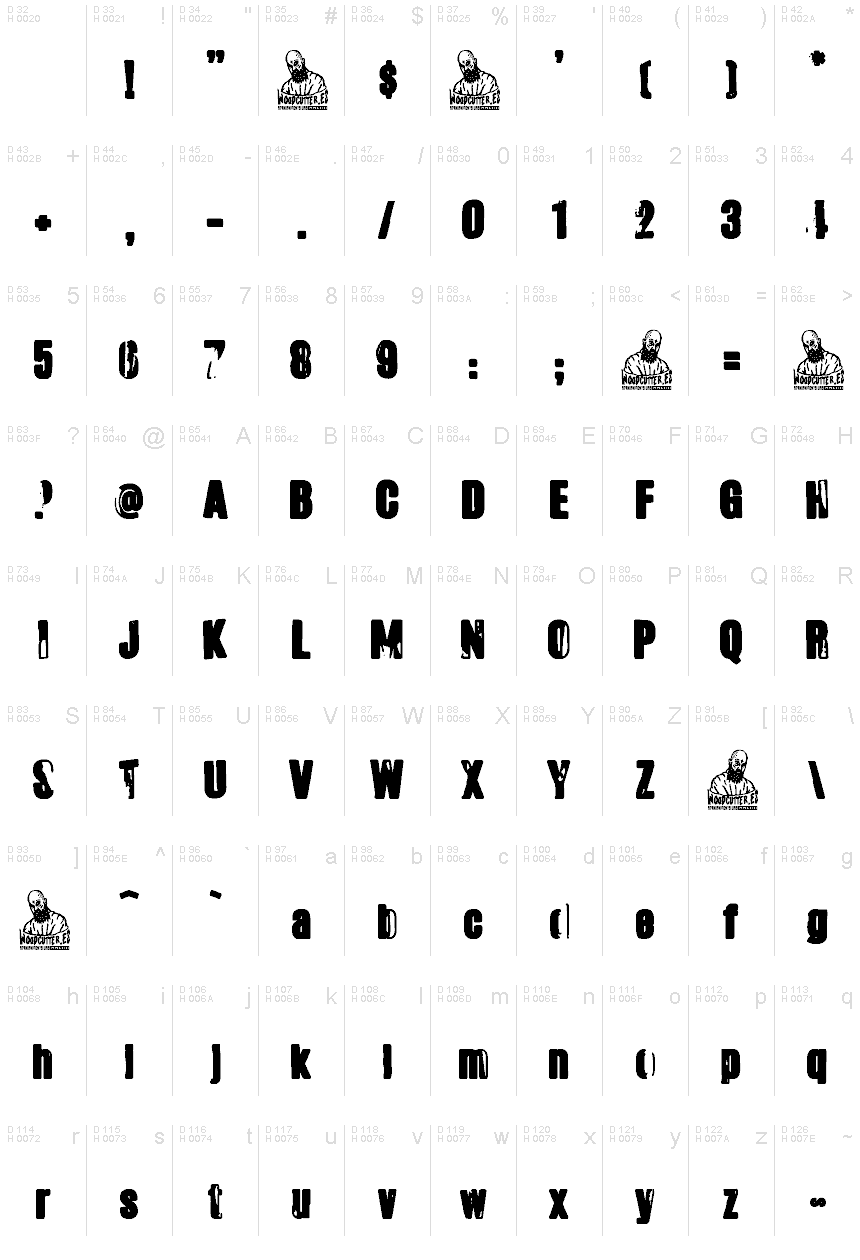
American News
American News font is Woodcutter’s new unique display font that showcases a bold and eroded style. It has a chunky condensed appearance with distressed details that give it an interesting retro look. The typeface also exhibits numerous vintage characteristics to enhance the overall impactful design.